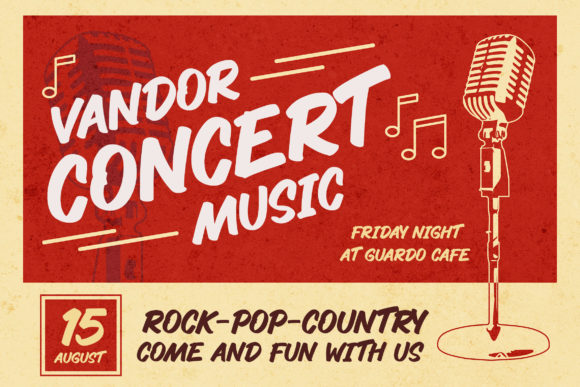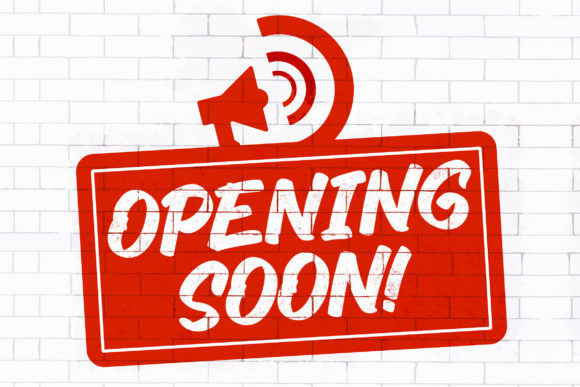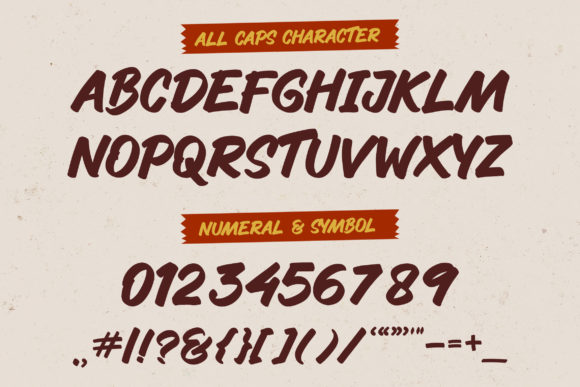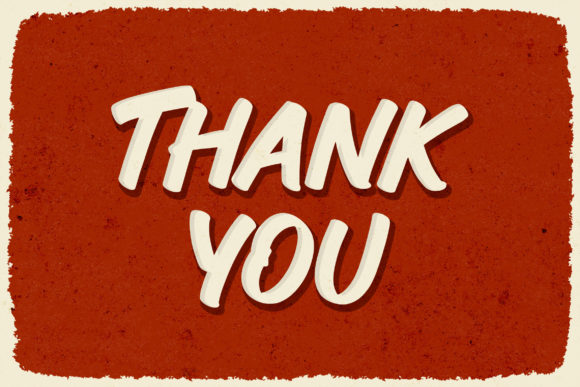
Introduction to Rowan Maskide Font
Have you ever stumbled upon a font that makes your creative ideas feel like they’re coming alive? For designers, finding the right font can be a game-changer. It’s that moment when your design project starts to take shape, and you can almost see the excitement in your audience’s eyes. That’s exactly what happens when you add the Rowan Maskide Font to your creative mix.
This casual and chunky lettered display font is more than just a pretty face – it’s a design resource that can elevate your high-quality projects to the next level. With its unique texture and playful feel, the Rowan Maskide Font is perfect for designers looking to add a personal touch to their designs. Plus, it’s available for a free download, making it an accessible addition to any creative project.
Whether you’re working on a new branding project or designing a visually striking poster, the Rowan Maskide Font is sure to make a statement. And with its transparent background, you can easily layer it over other design elements to create a stunning visual effect.
Key Features of Rowan Maskide Font
- Unique, hand-drawn design with a transparent background, making it ideal for creative projects and design resources.
- Features a large character set, including uppercase and lowercase letters, numbers, and punctuation marks, making it suitable for various design applications.
- Designed with a high level of detail and precision, resulting in a high-resolution font that looks great in print and digital formats.
- Perfect for use in creative projects, such as logo design, branding, and typography-based art, where a unique and distinctive font is required.
Honest Review: Rowan Maskide Font
As a designer, I’m always on the lookout for high-quality design resources to enhance my creative projects. The Rowan Maskide Font is one such resource that caught my attention recently. Here’s my honest review of this font.
- Unique and creative design style that adds a touch of elegance to any project
- High-quality font with crisp and clear typography
- Transparent background, making it easy to use in any design setting
- Limited font styles available (only a few weights and styles)
- No support for custom font sizes or styles
Overall, I’m impressed with the Rowan Maskide Font’s unique design style and high-quality typography. While it may have some limitations, it’s still a valuable resource for designers looking to add a touch of elegance to their creative projects. I’d definitely recommend it for free download.
How to Use Rowan Maskide Font
The Rowan Maskide Font is a high-quality design resource ideal for creative projects requiring a unique, eye-catching style. With its transparent background and versatile design, this font is perfect for adding a personal touch to various media formats.
- Combine the Rowan Maskide Font with other design elements to create a unique visual identity.
- Use the transparent background feature to create custom designs and graphics.